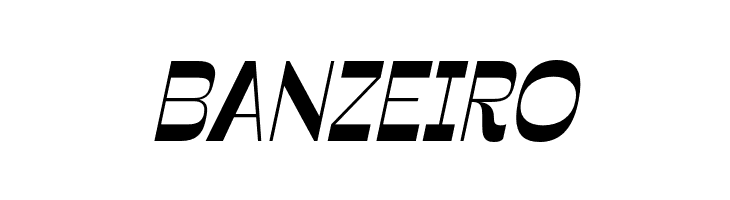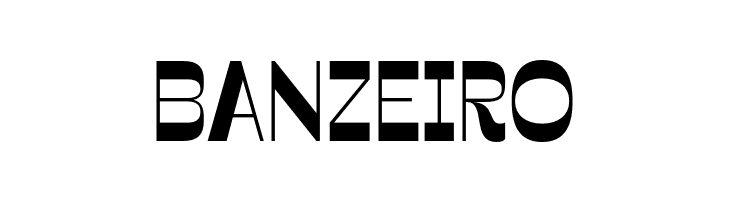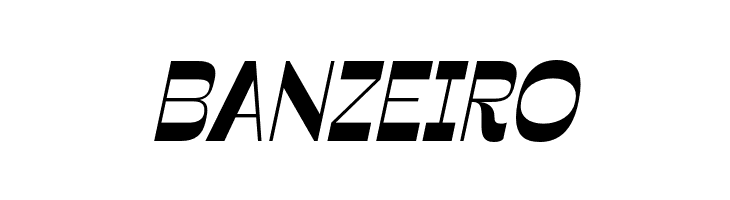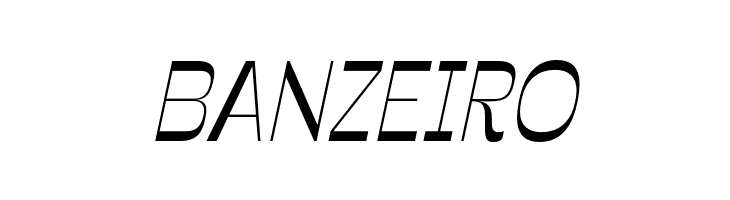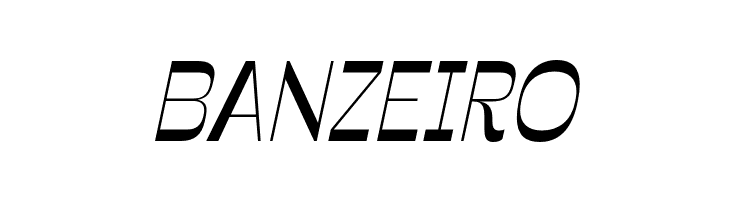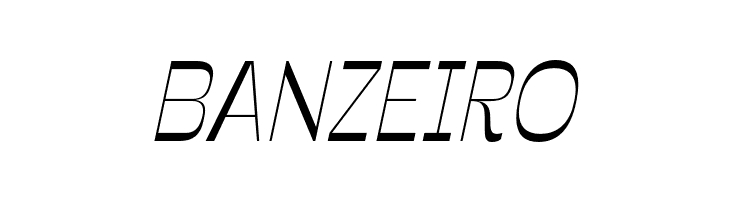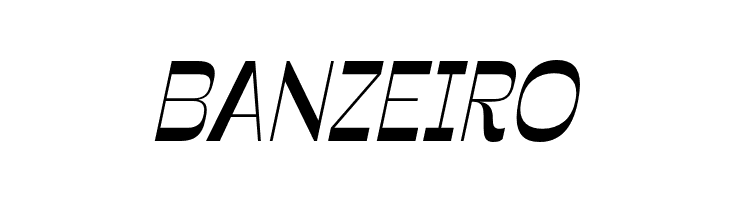
A bold, italic font with high contrast and dynamic style.
An elegant, extra light italic font with a modern and fluid style.
A sleek, italicized font with a modern and elegant style.
A sleek, elegant, and modern italic font with a light and airy feel.
A sleek, modern italic font with medium weight and dynamic style.
A modern, semi-bold italic font with sleek curves and sharp edges.
A sleek, thin italic font with elegant, elongated characters.